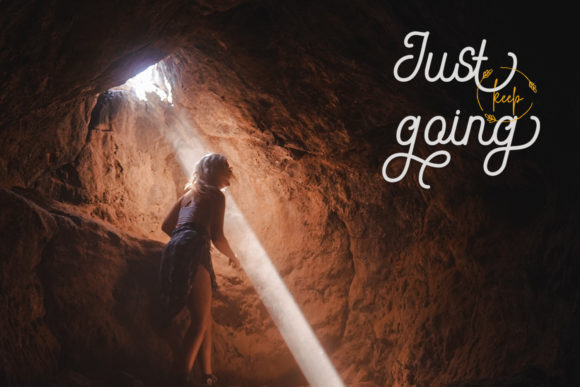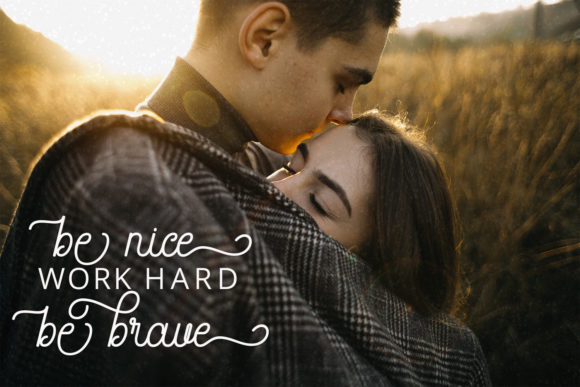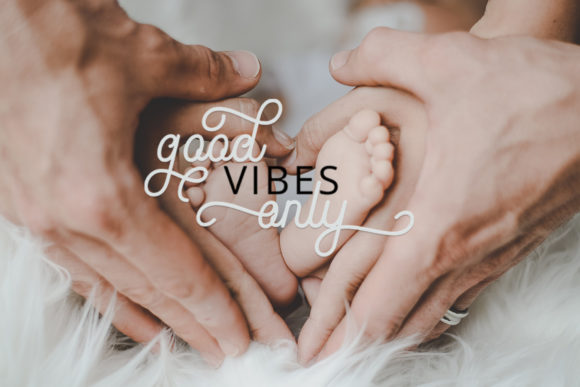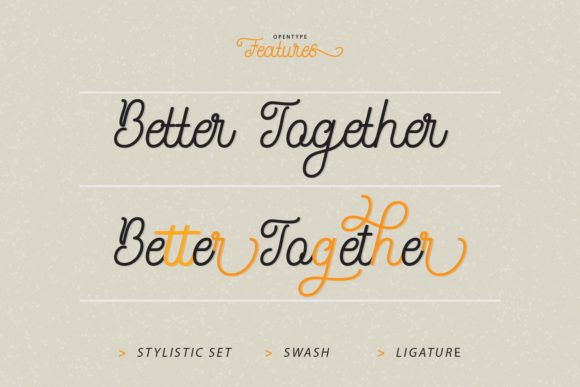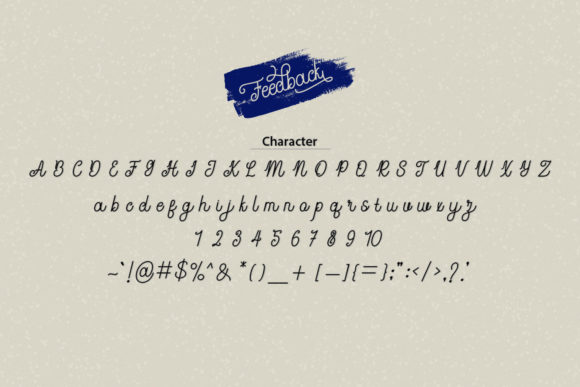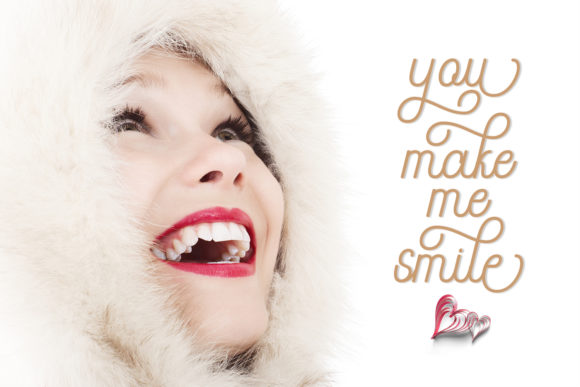
Introducing Feedback Font: Elevate Your Designs with a Touch of Whimsy
In the world of design, fonts play a crucial role in conveying the tone and personality of a project. Whether you’re a seasoned designer or a crafty DIY enthusiast, finding the right font can make all the difference. That’s where Feedback Font comes in – a stunning script that adds a playful and magical touch to any design. In this article, we’ll dive into the world of Feedback Font, exploring its features, uses, and benefits.
What is Feedback Font?
Feedback Font is a beautiful script font that boasts playful swashes and a whimsical feel. Its unique design makes it perfect for a wide range of projects, from wedding invitations and branding materials to social media graphics and craft projects. With its elegant and cursive strokes, Feedback Font is sure to add a touch of sophistication and personality to your designs.
Key Features of Feedback Font
- Playful Swashes: Feedback Font features beautiful swashes that add a touch of whimsy to your designs. These swashes can be used to create stunning titles, headings, and even social media graphics.
- Magical Feel: The font’s magical feel makes it perfect for projects that require a touch of fantasy and imagination. Whether you’re designing for a children’s brand or creating a whimsical craft project, Feedback Font is sure to deliver.
- Elegant and Cursive Strokes: The font’s elegant and cursive strokes make it perfect for creating beautiful and sophisticated designs. From wedding invitations to branding materials, Feedback Font is sure to impress.
Uses of Feedback Font
Feedback Font is a versatile font that can be used for a wide range of projects, including:
- Wedding Invitations: Add a touch of elegance and sophistication to your wedding invitations with Feedback Font.
- Branding Materials: Use Feedback Font to create stunning branding materials, such as logos, business cards, and letterheads.
- Social Media Graphics: Create eye-catching social media graphics with Feedback Font, perfect for promoting your brand or business.
- Craft Projects: Add a touch of whimsy to your craft projects, such as handmade cards, scrapbooking, and DIY decorations.
Benefits of Using Feedback Font
So, why choose Feedback Font for your design projects? Here are just a few benefits:
- Unique and Eye-Catching: Feedback Font is a unique and eye-catching font that is sure to make your designs stand out.
- Versatile: Feedback Font can be used for a wide range of projects, making it a great addition to any designer’s toolkit.
Tips for Using Feedback Font
Here are a few tips for using Feedback Font in your design projects:
- Experiment with Swashes: Don’t be afraid to experiment with the font’s swashes to create unique and eye-catching designs.
- Pair with Other Fonts: Pair Feedback Font with other fonts to create stunning and contrasting designs.
- Use for Headings and Titles: Use Feedback Font for headings and titles to add a touch of elegance and sophistication to your designs.
| Font Name | Feedback Font |
| Author | Bexx Type |
In conclusion, Feedback Font is a stunning script font that is sure to elevate your design projects. With its playful swashes, magical feel, and elegant strokes, Feedback Font is perfect for a wide range of projects, from wedding invitations to social media graphics. Whether you’re a seasoned designer or a crafty DIY enthusiast, Feedback Font is a great addition to any designer’s toolkit.